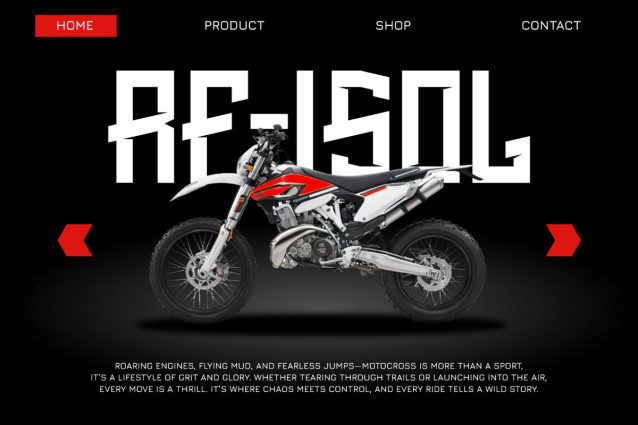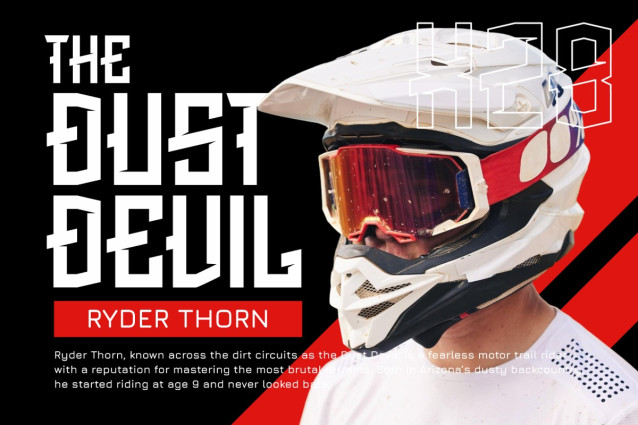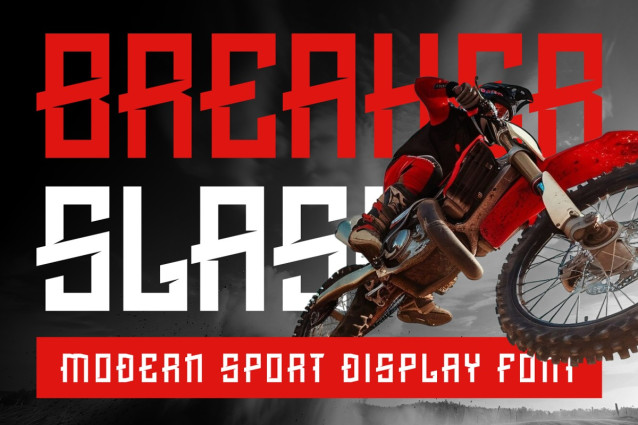
Breaker Slash Font
Breaker Slash Font is a powerful modern sport display font built for adrenaline-fueled branding. Designed with a bold and masculine aesthetic, each letterform strikes with sharp diagonal cuts, high-contrast geometry, and extreme verticality—mirroring the energy of extreme sports like motocross, racing, and combat gaming. Its modular structure and aggressive blade-like terminals give off a sense of speed, control, and rebellion. With uppercase and lowercase styles that share a rugged DNA, this typeface is visually commanding at both headline and logo scale.
Ideal for titles, logos, posters, packaging, and sports merchandise, Breaker Slash brings raw momentum to your design. Its layout versatility is demonstrated through gritty website headers, dynamic rider bios, and logo badges that cut through the noise. This font pairs well with high-energy visuals and works seamlessly across digital and print media. Whether you’re building a motocross brand, crafting a sports label, or launching an action-themed campaign, Breaker Slash will set the tone with unstoppable force.